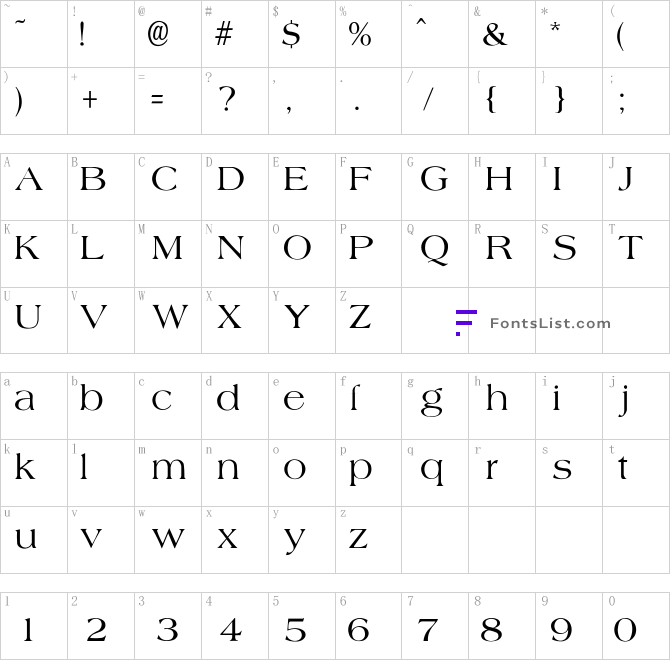
- Font Name:Agate-Normal
Agate-Normal-copy-2-.ttf is a very beautiful artistic font, Agate-Normal-copy-2-.ttf is widely used in the design and printing of various books and pictures,Agate-Normal-copy-2-.ttf has a strong visual impact,Agate-Normal-copy-2-.ttf is a commonly used font in newspapers, magazines and books, and is used in posters, e-commerce Poster design, store design, logo design, font design and other fields.Agate-Normal-copy-2-.